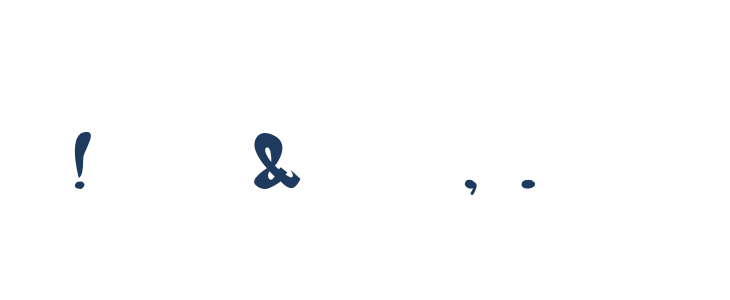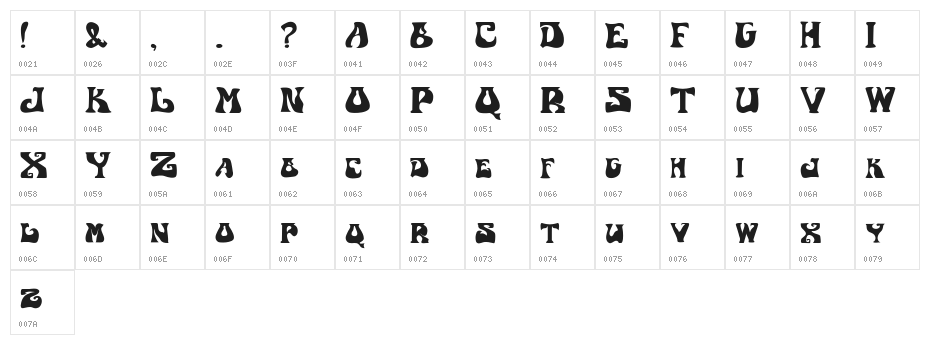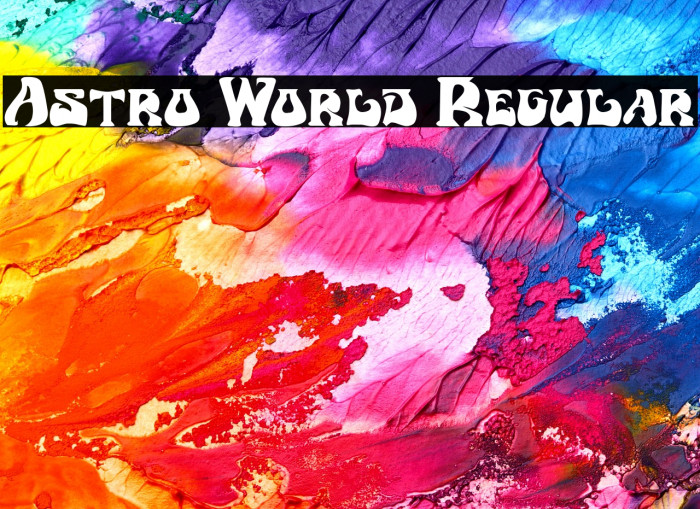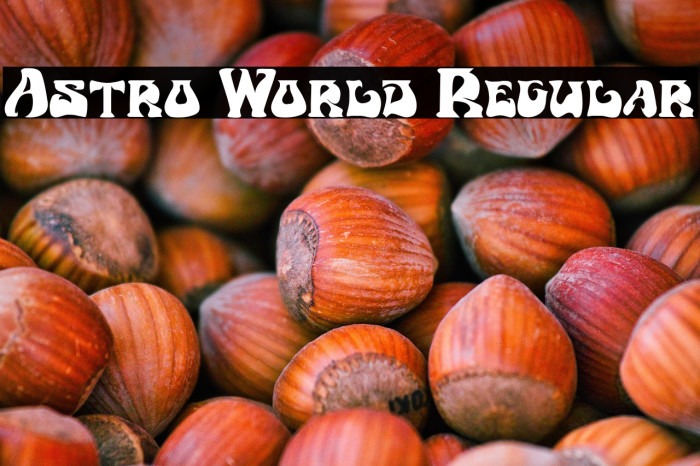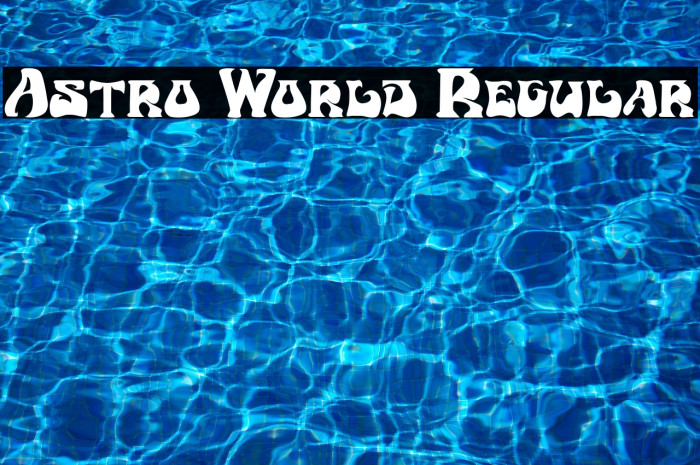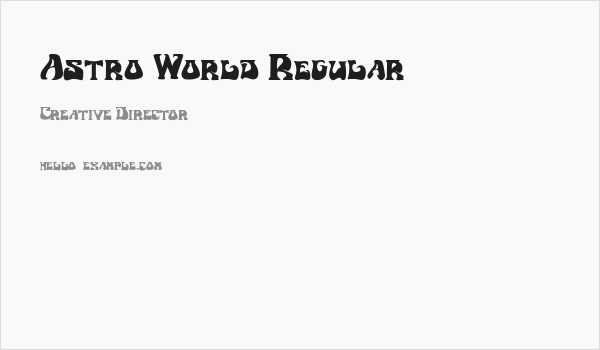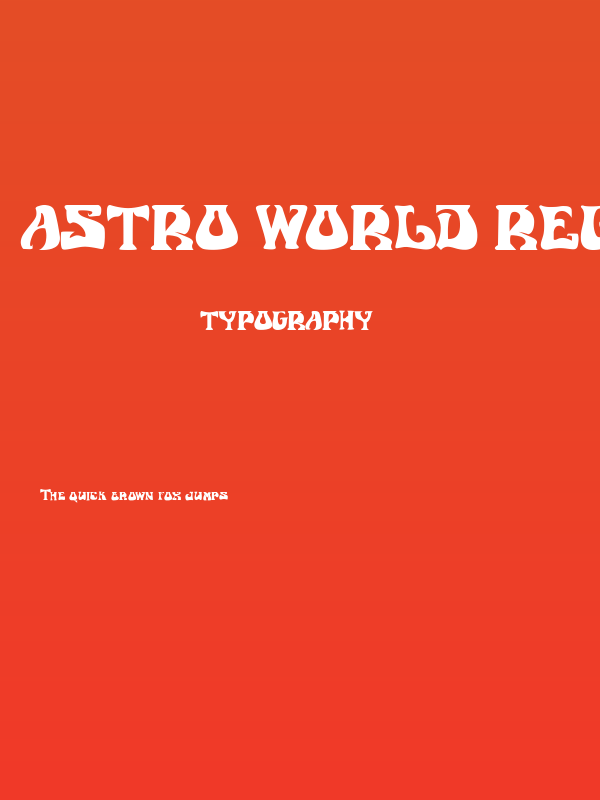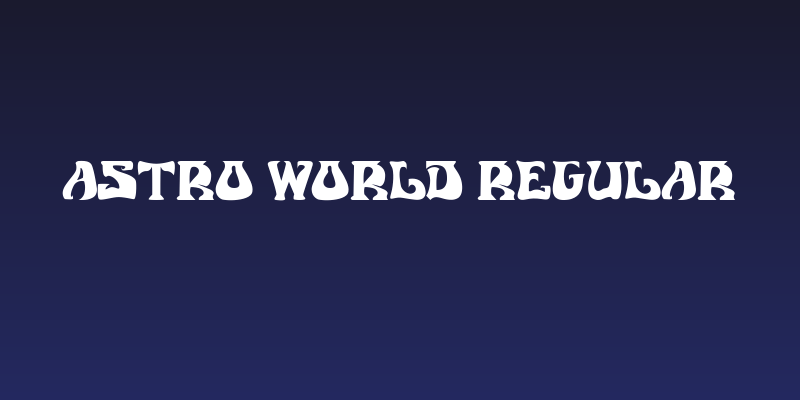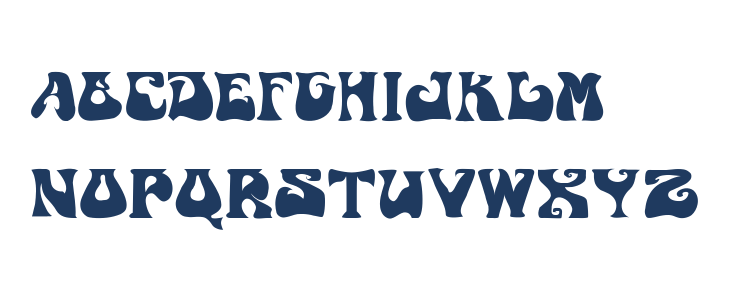
Astro World Regular Font
Astro World Regular Description
This font features a bold and dynamic style with a unique, playful twist. The characters are heavily stylized with exaggerated curves and angles, giving them a whimsical and artistic appearance. The strokes are thick and consistent, creating a strong visual impact. The design incorporates elements of both modern and retro aesthetics, making it versatile for various creative projects. The font's distinct personality is evident in its quirky letterforms, which are perfect for capturing attention and adding character to any design.
| Proposed Projects | Ideal for posters, album covers, branding, and any project requiring a bold, artistic touch. |